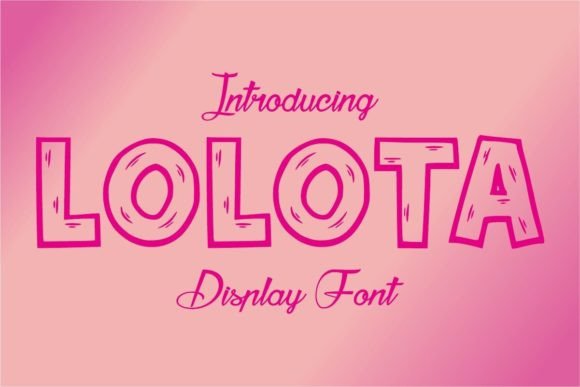
Introducing the enchanting Lolota Font, a captivating display font designed by Im.design.art that will breathe life into your creative projects! With its bold and fun personality, this font is destined to leave a lasting impression on anyone who sees it.
Imagine the possibilities with Lolota Font! Its unique and eye-catching style is perfect for a wide range of applications. Whether you're designing t-shirts, stickers, book covers, or even children's books, this font will add a touch of magic to your creations. It's the perfect choice for those seeking a font that stands out from the crowd.
But the magic doesn't stop there! Lolota Font is also a fantastic choice for social media posts and advertising materials. With its ability to instantly grab attention, your messages will be impossible to ignore. Stand out from the noise and make a statement with this font that truly speaks volumes.
Not only does Lolota Font make a visual impact, but it also conveys emotion and personality. Its playful and cheerful demeanor will evoke positive feelings in your audience, making them more likely to engage with your content. Let your words come to life with this font that radiates joy and enthusiasm.
When it comes to marketing your products or services, the right font can make all the difference. Lolota Font, with its captivating design and versatility, is the perfect companion for any marketing campaign. It has the power to transform ordinary text into an attention-grabbing masterpiece, helping you make a lasting impression on your target audience.
So why wait? Dive into the world of creativity with Lolota Font and let your imagination run wild. Whether you're a seasoned designer or just starting your creative journey, this font is sure to inspire and empower you. Take your projects to new heights and create designs that exceed expectations.